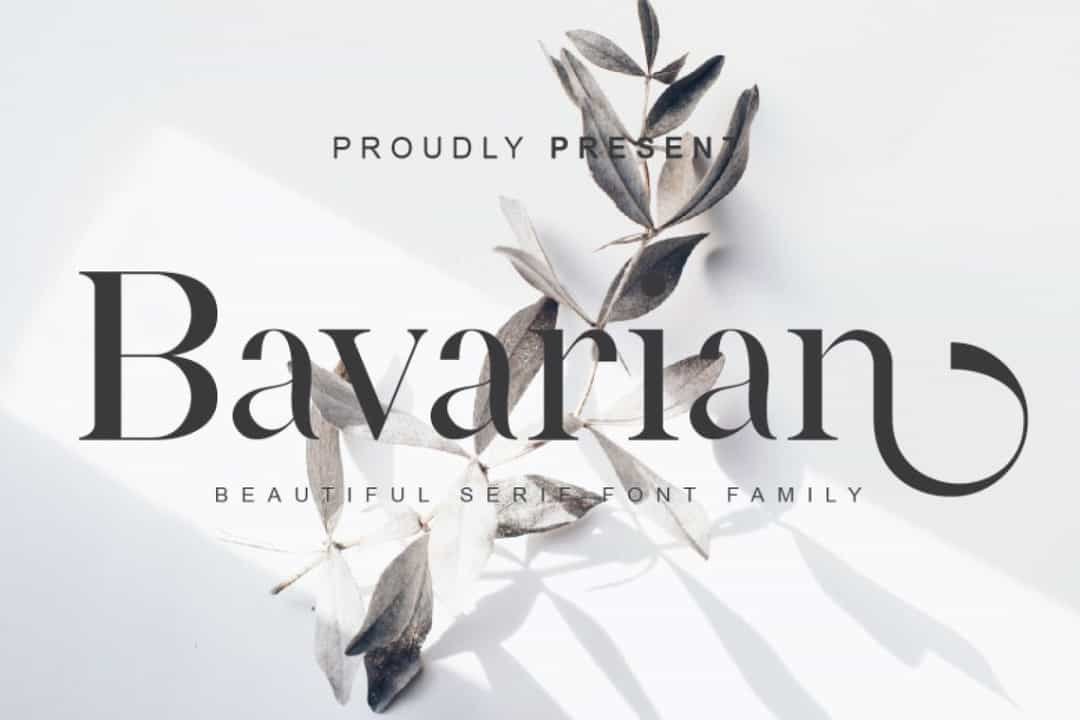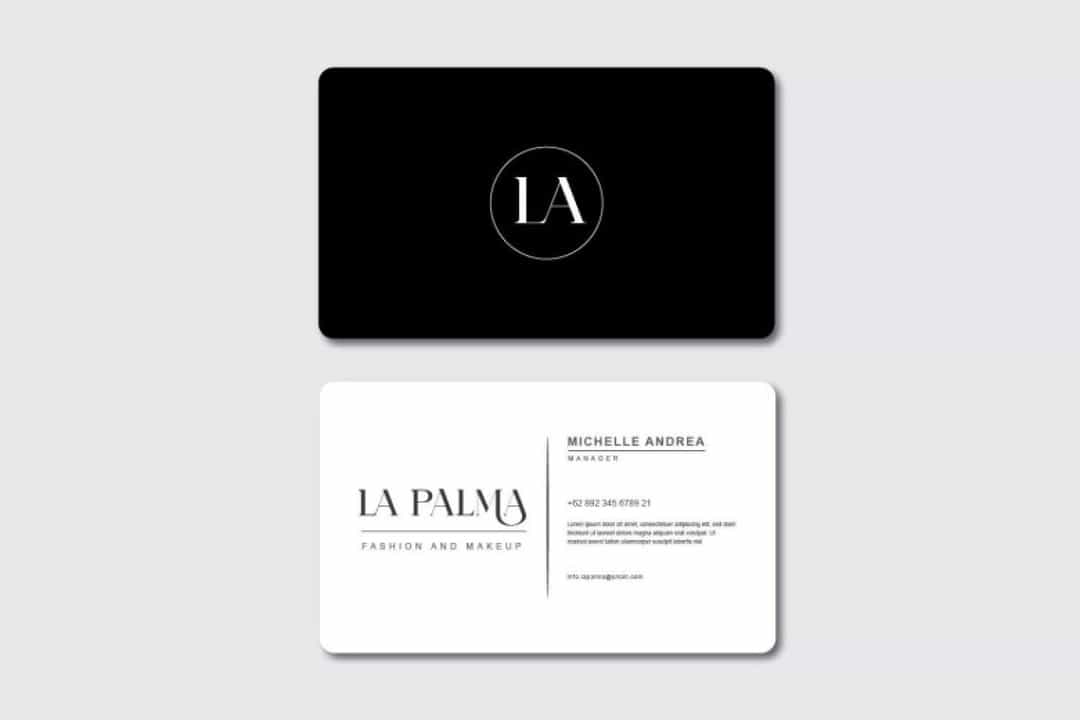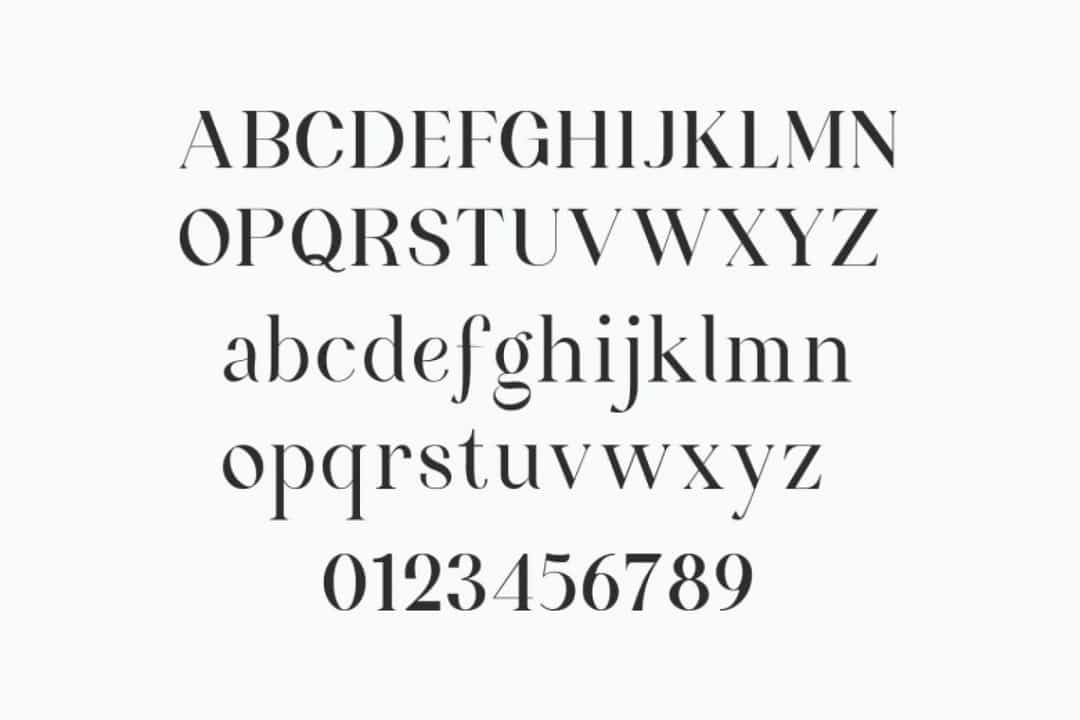
Bavarian is an elegant serif font perfect for use in wedding cards, invitations to weddings, advertisements, newspapers and presentations. Add this font to your font library for vivid ideas that come alive!